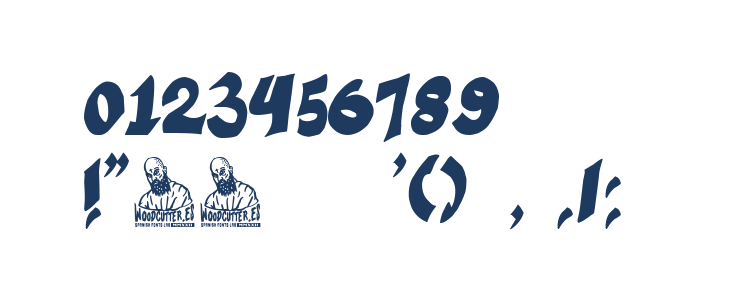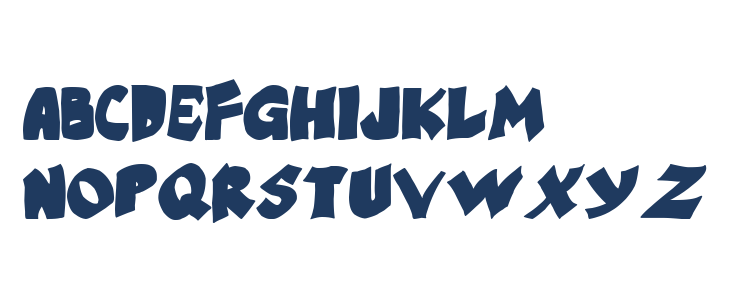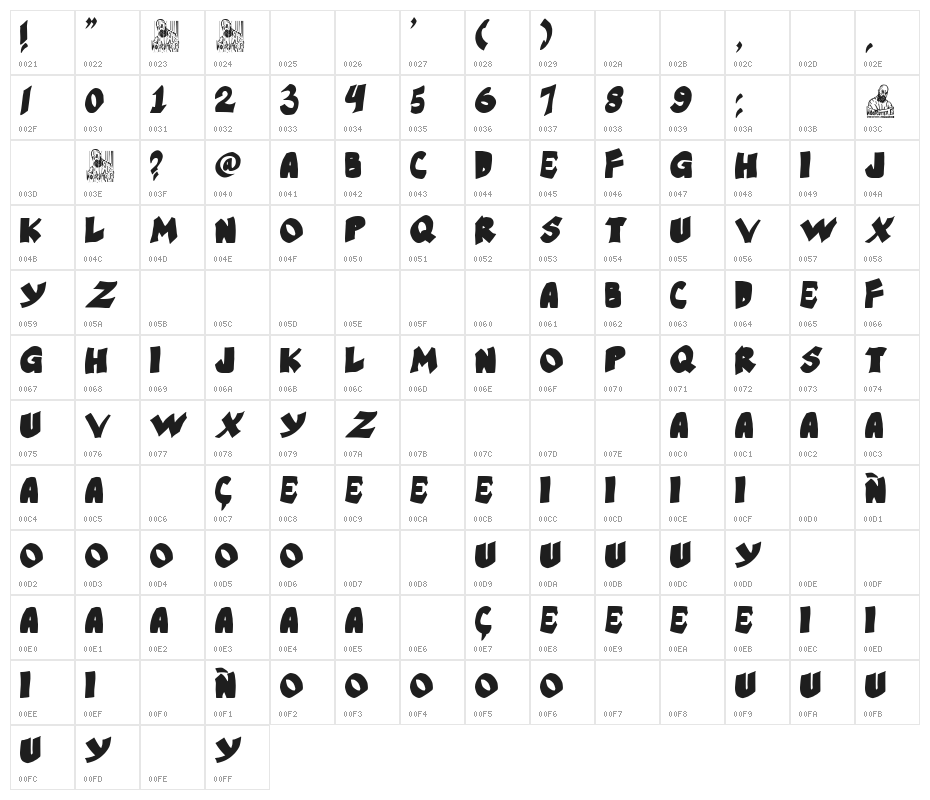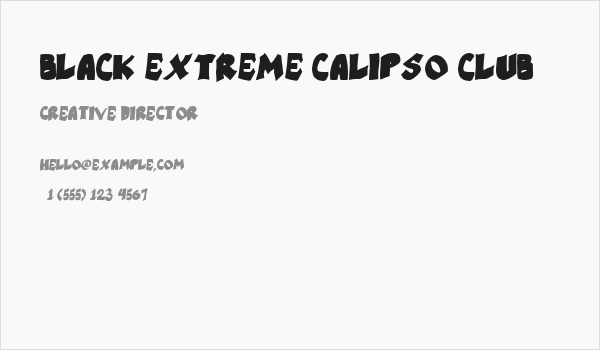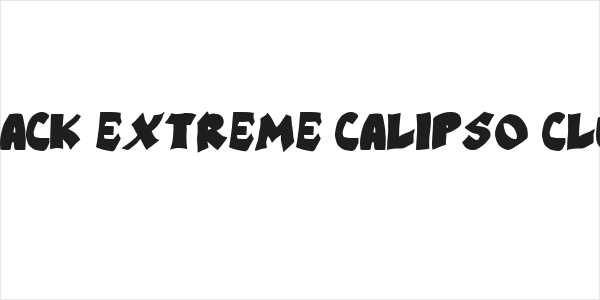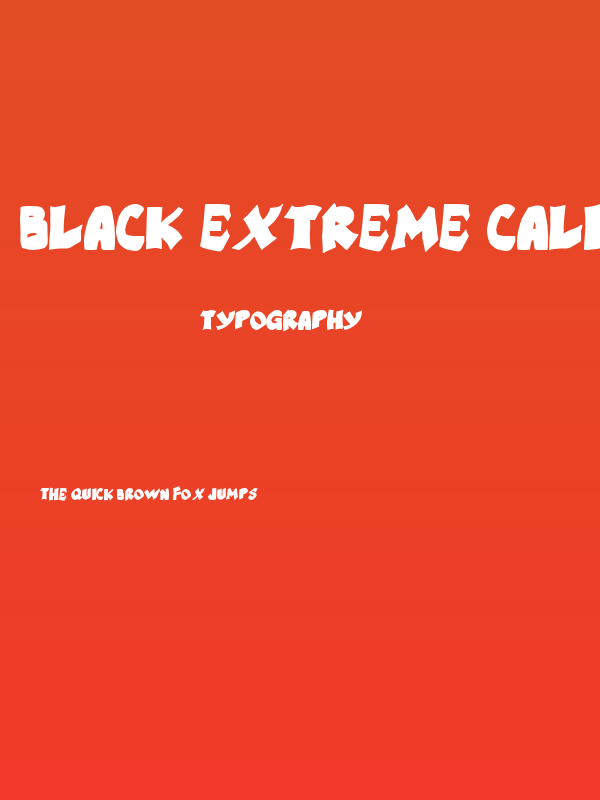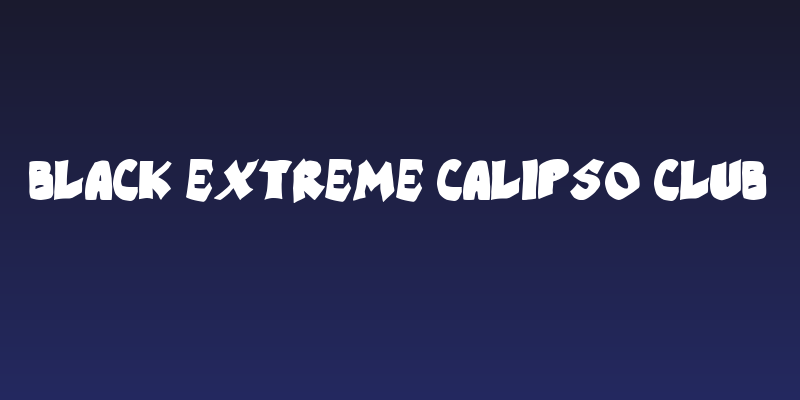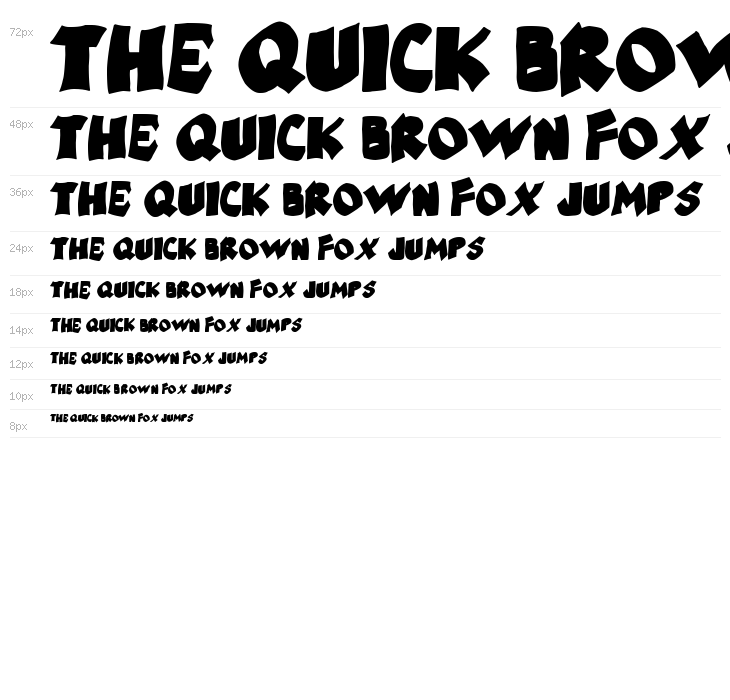
Black Extreme Calipso Club Font
Black Extreme Calipso Club Description
| Overall Style | Decorative, Playful, Hand-drawn |
| Use Case | Headlines, Posters, Logos, Event Flyers |
| Proposed Projects | Posters, party invitations, comic book titles, event branding, childrenΓ’β¬β’s materials, eye-catching headlines. |